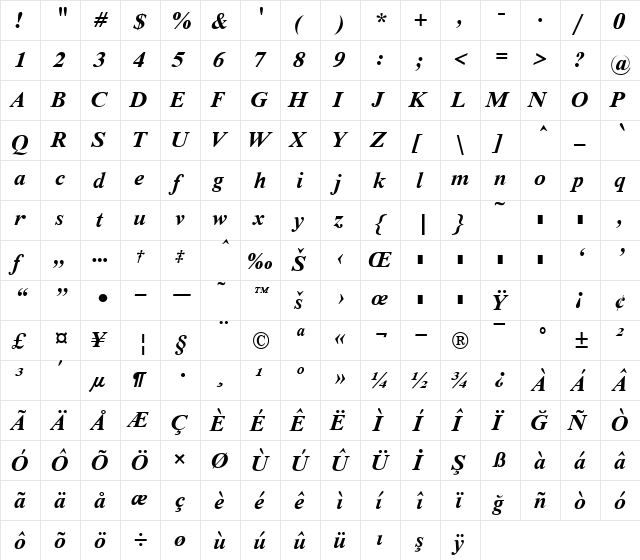
TmsTr Bold Italic
Design Context for TmsTr Typeface
TmsTr takes a measured approach to typography — its balanced proportions and neutral character make it a reliable workhorse for both digital and print work. The dynamic lean of this cut emphasises speed and emphasis in any layout. The heavy weight commands attention and anchors typographic hierarchies.
Pro Tip: Try TmsTr for annotation and caption copy alongside an upright companion — the contrast in angle creates a dynamic but ordered typographic system.